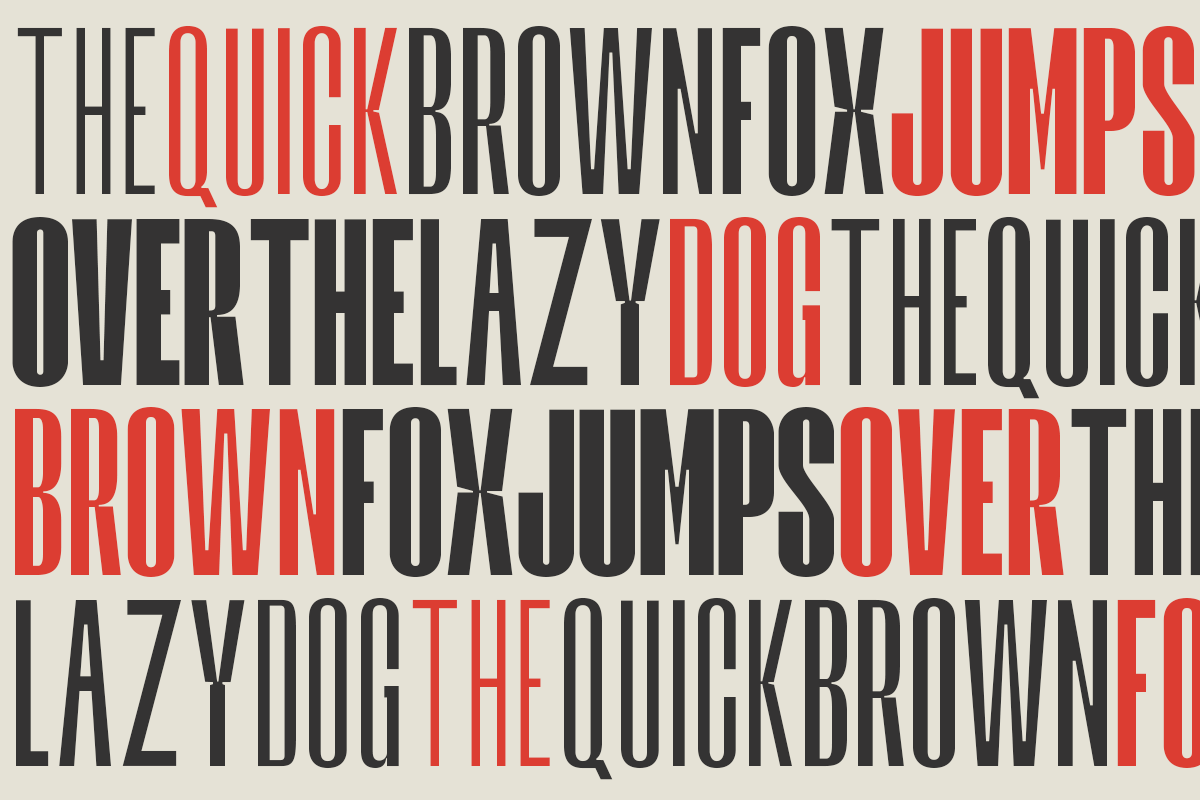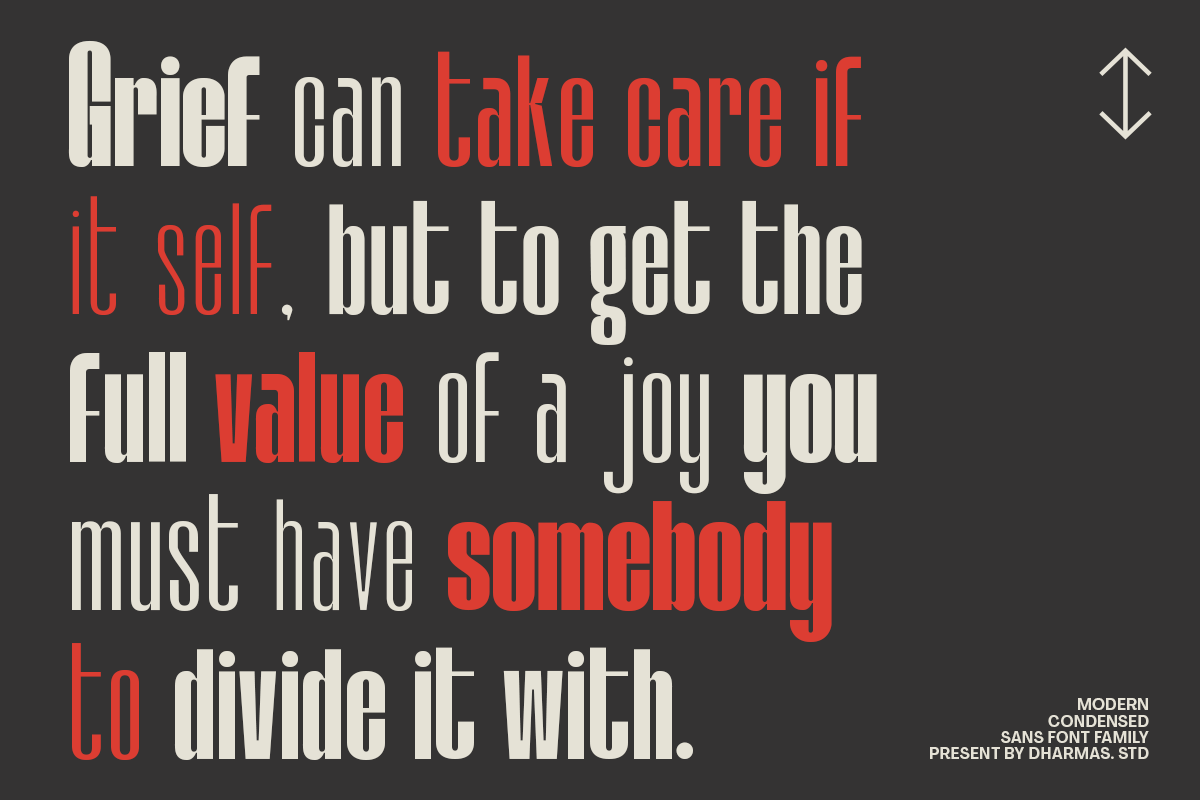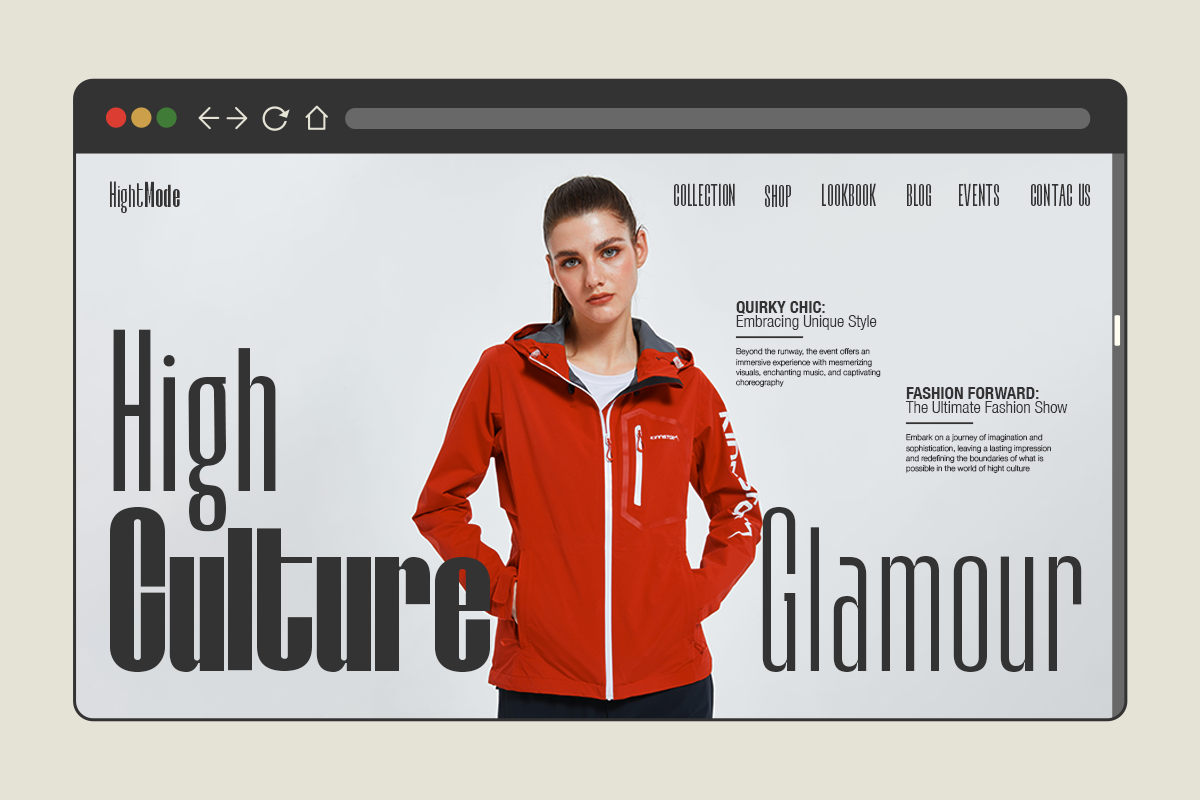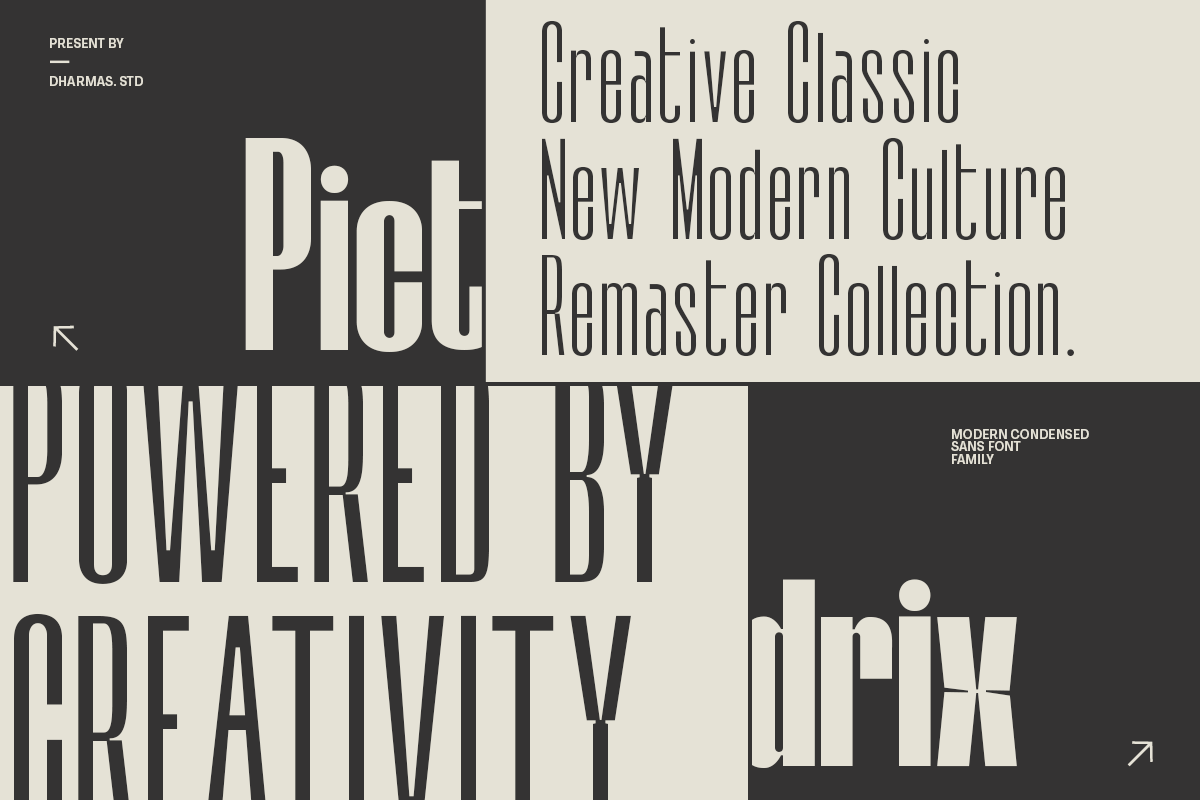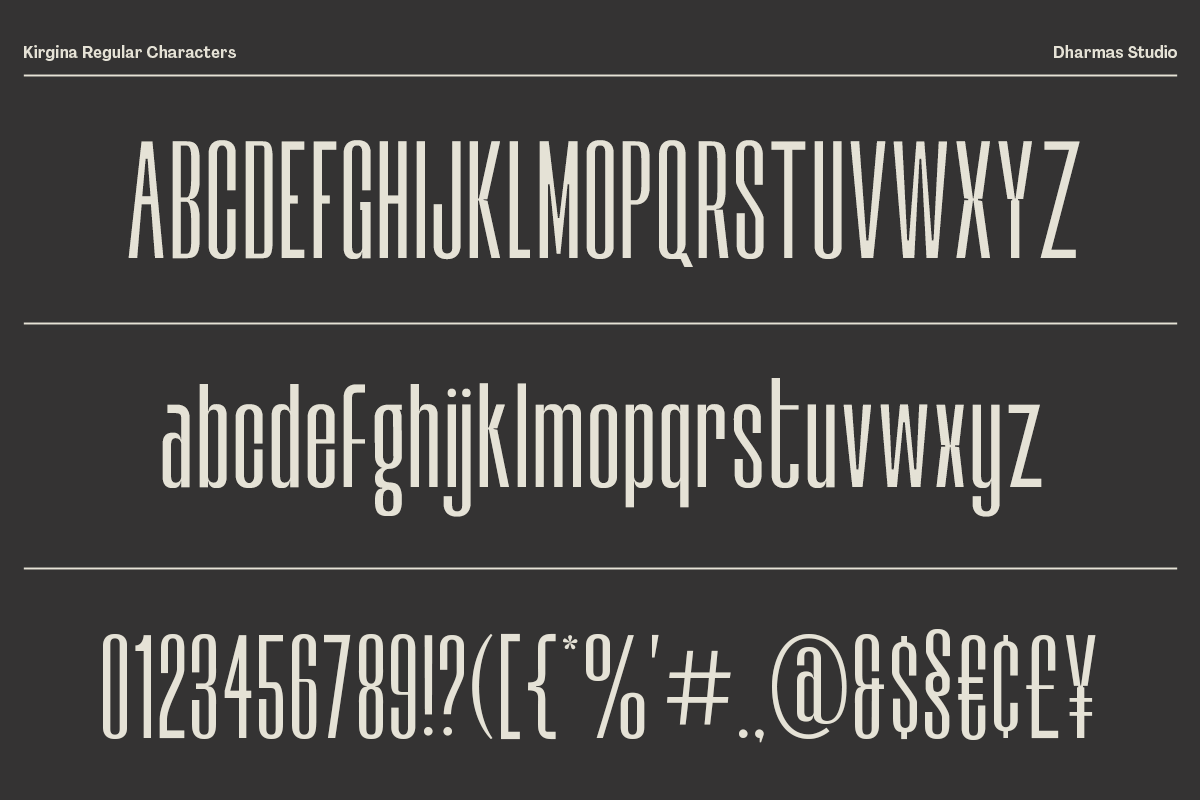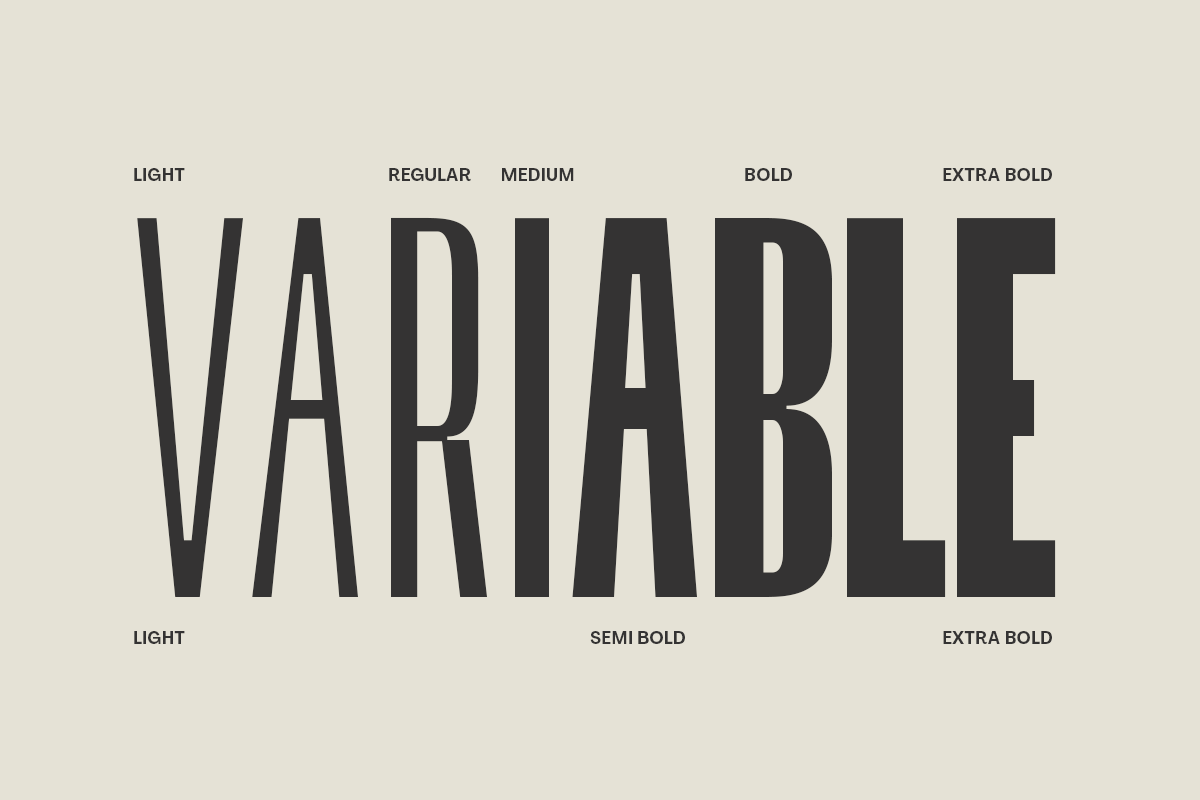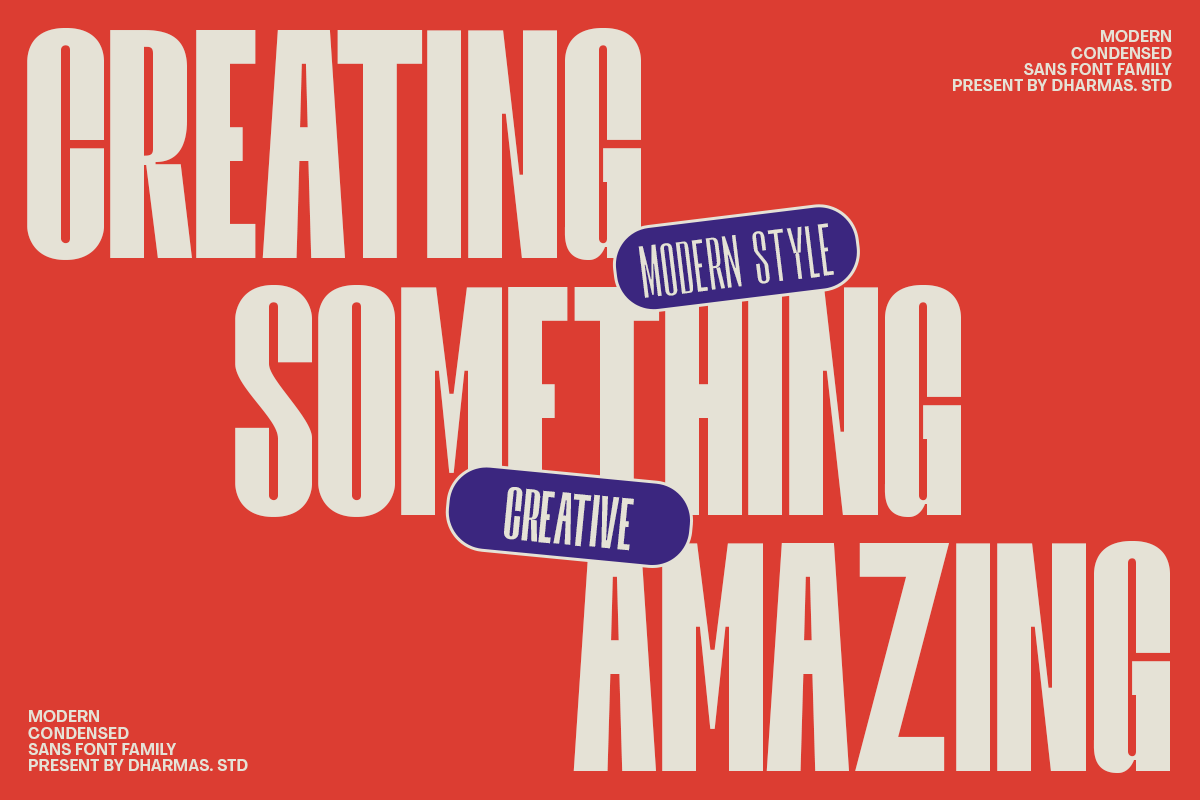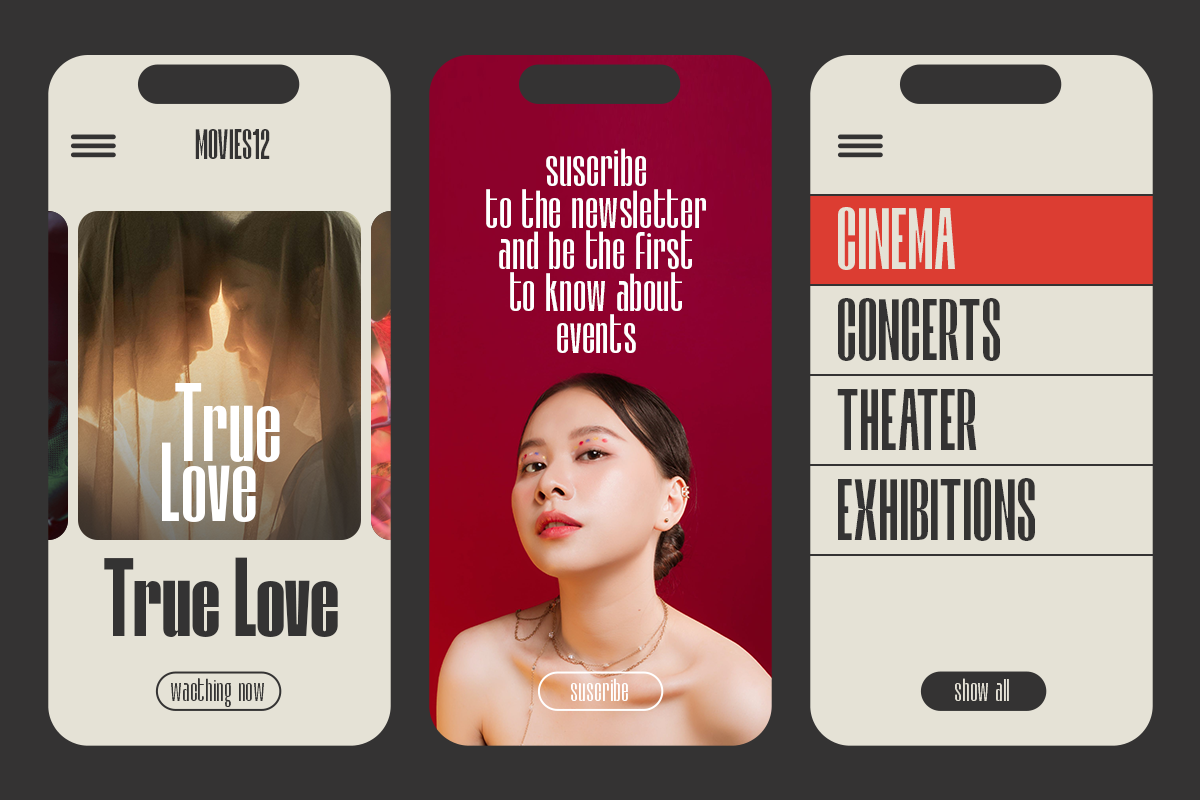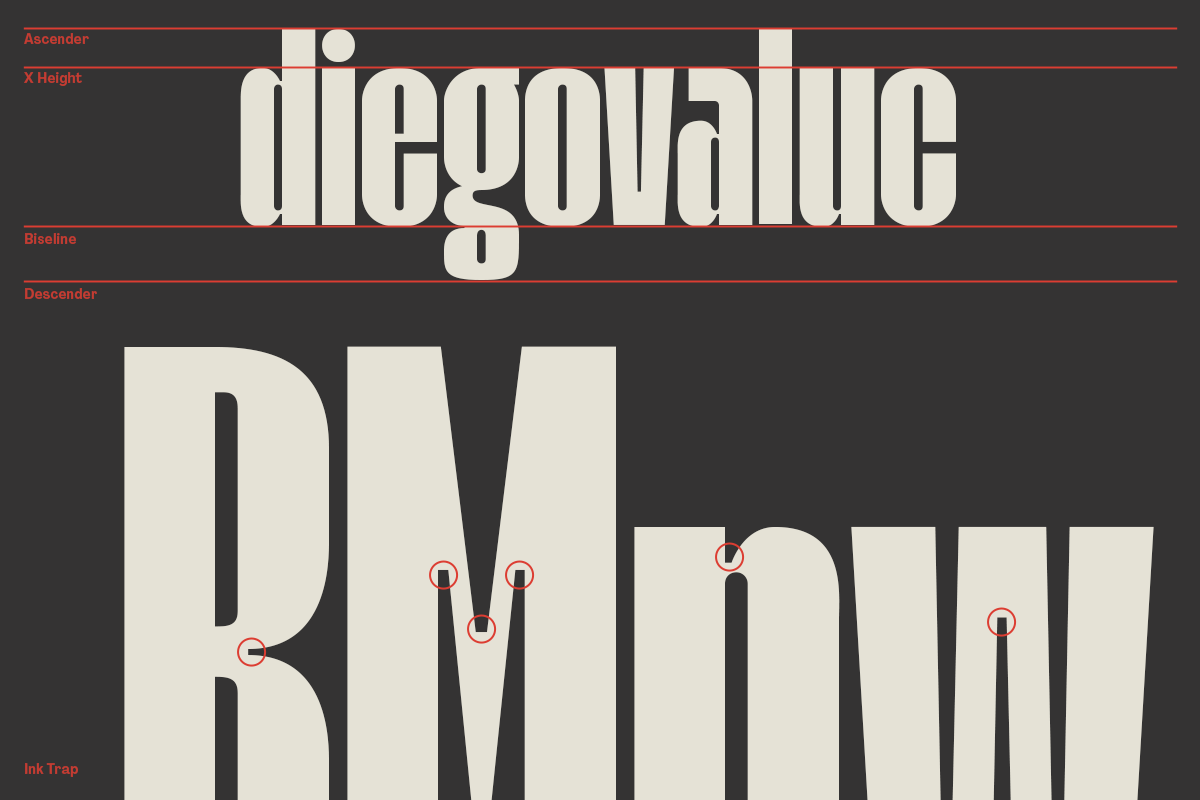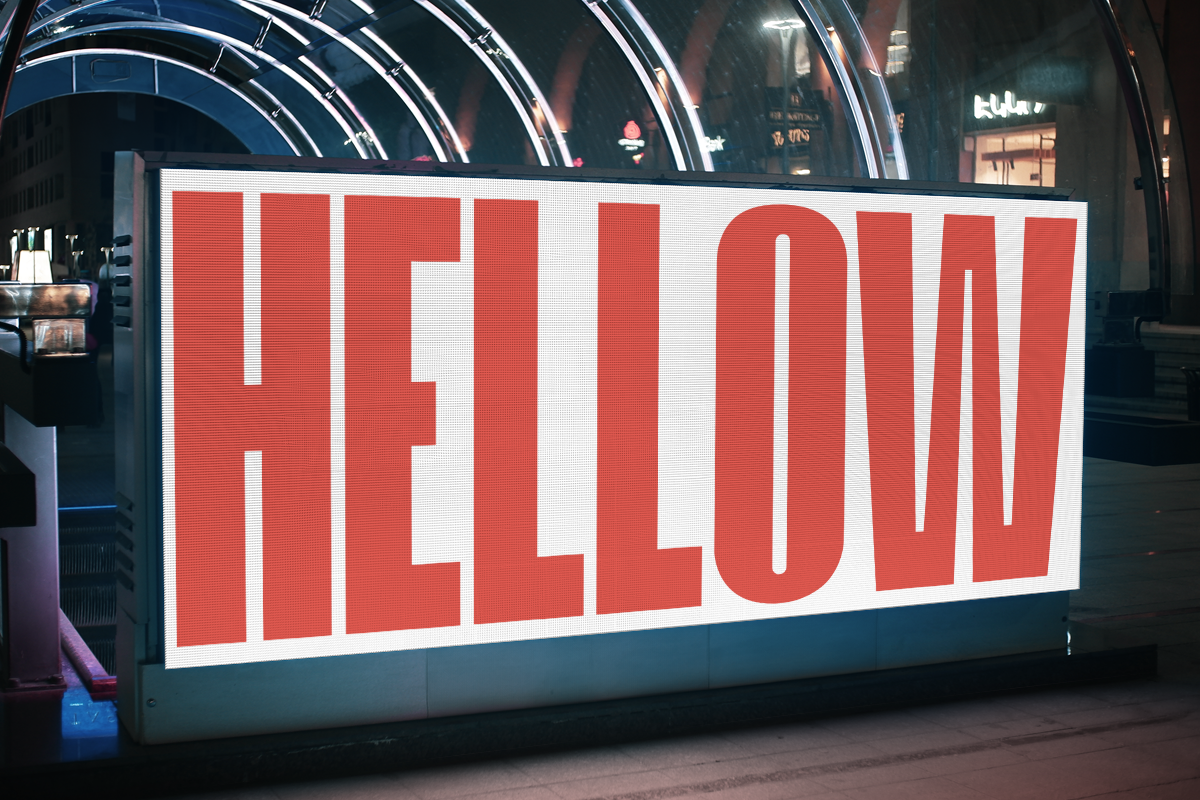
Kirgina - 6 Condensed Font
Introducing Kirgina! – An ultra-condensed sans serif with a style that is very different from the others
Kirgina is a condensed sans-serif typeface created to be used for bold titles with distinctive shapes in a display font way to make it legible for contemporary use. Come with single-weight, legible, and expressive shapes. Its glyph catalog provides an easy-to-compose system for Latin languages with high x-height and tight line spacing.
Kirgina comes in 6 font styles (Light, Regular, Medium, SemiBold, Bold, ExtraBold), Its weight is superior in posters, social media, headlines, magazine titles, clothing, large print formats - and wherever you want to be seen. Inspired by the style of design that is currently popular, this is the answer to all the needs of every idea that you will pour into this modern era.
Family Font (Light, Regular, Medium, SemiBold, Bold, ExtraBold)
Unique Gylph Letters